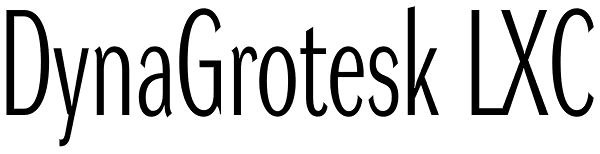
DynaGrotesk
Has altogether 60 designs, because it was originally produced as a Multiple Master typeface. The entire big family is grouped into eighteen independent, smaller four-design families, of which the user may choose, for example, only two or three which...